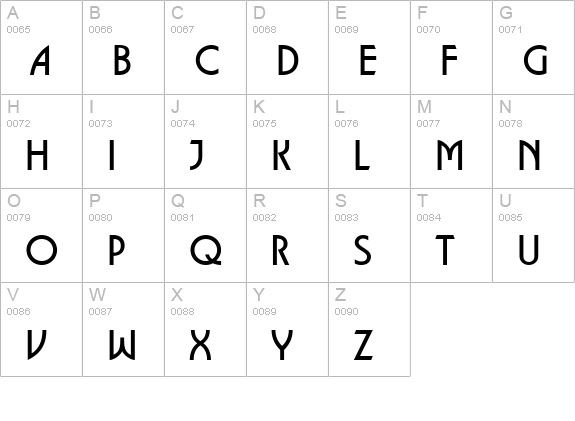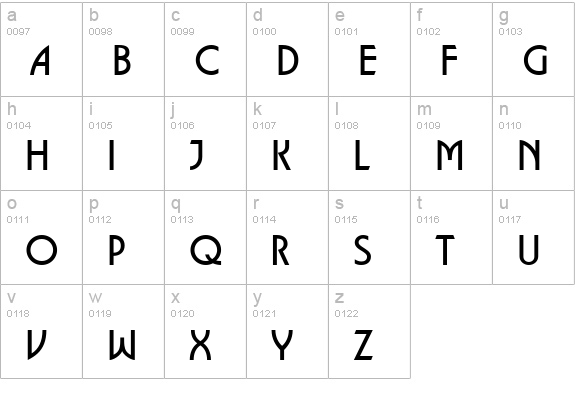
The_Lancet font is a modern and elegant typeface designed to bring sophistication and style to your projects. With its sleek lines and graceful curves, this font exudes a sense of professionalism and refinement. Whether you're designing a logo, creating a website, or working on a branding project, The_Lancet font is sure to elevate your work to the next level. Best of all, The_Lancet font is available for free download at FontsMarket.com. This means you can add this stunning typeface to your collection without having to spend a dime. Don't miss out on the opportunity to enhance your designs with this beautiful and versatile font. Download The_Lancet today and take your projects to new heights of sophistication and elegance.